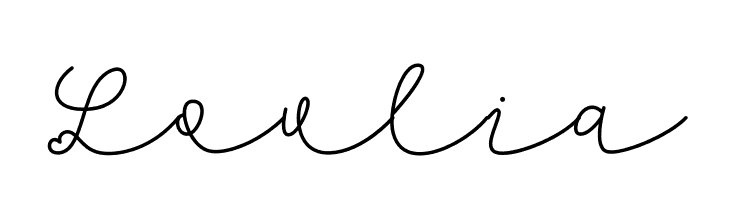
A lively and expressive handwritten font with dynamic strokes.
A graceful, handwritten script font with a modern, elegant style.
A delicate and flowing script font with a romantic and sophisticated style.